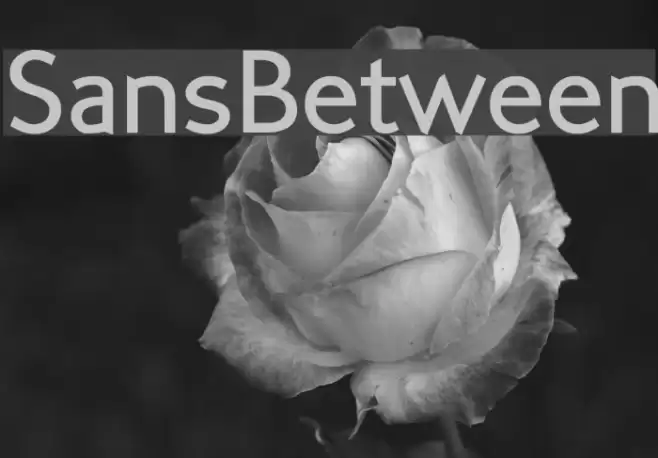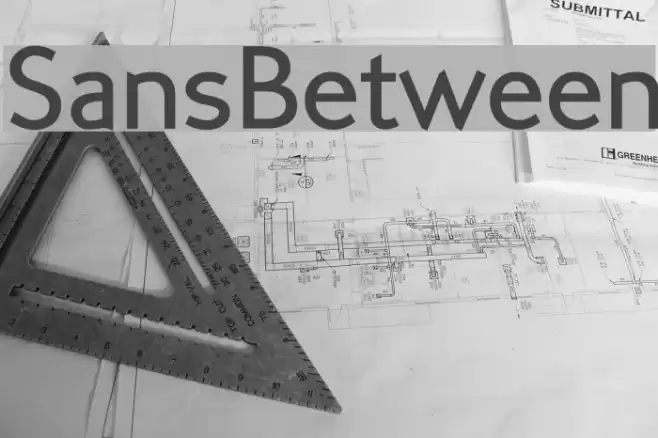
SansBetween Font
SansBetween Description
This font features a clean and modern sans-serif style with a geometric influence. The characters are well-proportioned, offering a balanced and harmonious appearance. Uppercase letters are bold and assertive, while lowercase letters maintain a friendly and approachable feel. The numerals are clear and legible, making them suitable for various applications. Special characters are distinct and well-designed, ensuring versatility in usage. The overall design is minimalistic, emphasizing clarity and readability.
A modern, geometric sans-serif font with clean lines and balanced proportions from Uncategorized fonts.
- Proposed Projects: Ideal for branding, web design, advertising, and editorial layouts due to its clarity and modern aesthetic.
- Use Case: Headlines, Body text, Logos